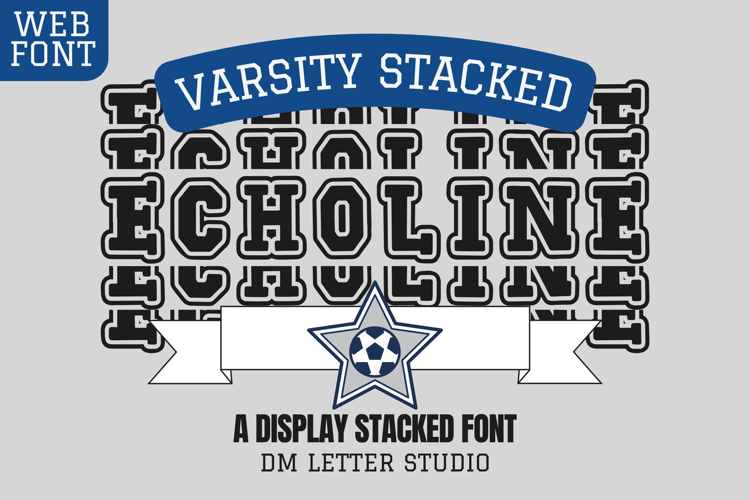
Echoline Varsity Stacked
Echoline Stacked – Bold & Modern Stacked Display Font
Echoline Stacked is a bold and eye-catching stacked display font designed to make your words stand tall and stylish. With a clean yet playful structure, this font is perfect for modern branding, editorial headlines, merch designs, and social media graphics that need a strong visual impact.
Whether you’re working on a bold fashion label, a quirky YouTube thumbnail, or an attention-grabbing poster, Echoline Stacked delivers a confident, layered look that feels fresh and creative.
🖋️ Font Features:
• Modern stacked letter style
• Bold sans-serif form
• All-caps font for max impact
• Great readability for headers & logos
• Works beautifully in both print and digital media
🎨 Perfect For:
• Fashion & editorial branding
• Posters and flyers
• Album covers and packaging
• YouTube & podcast graphics
• Trendy social media quotes
• Typography-based logos
• Stickers, shirts, and other merch